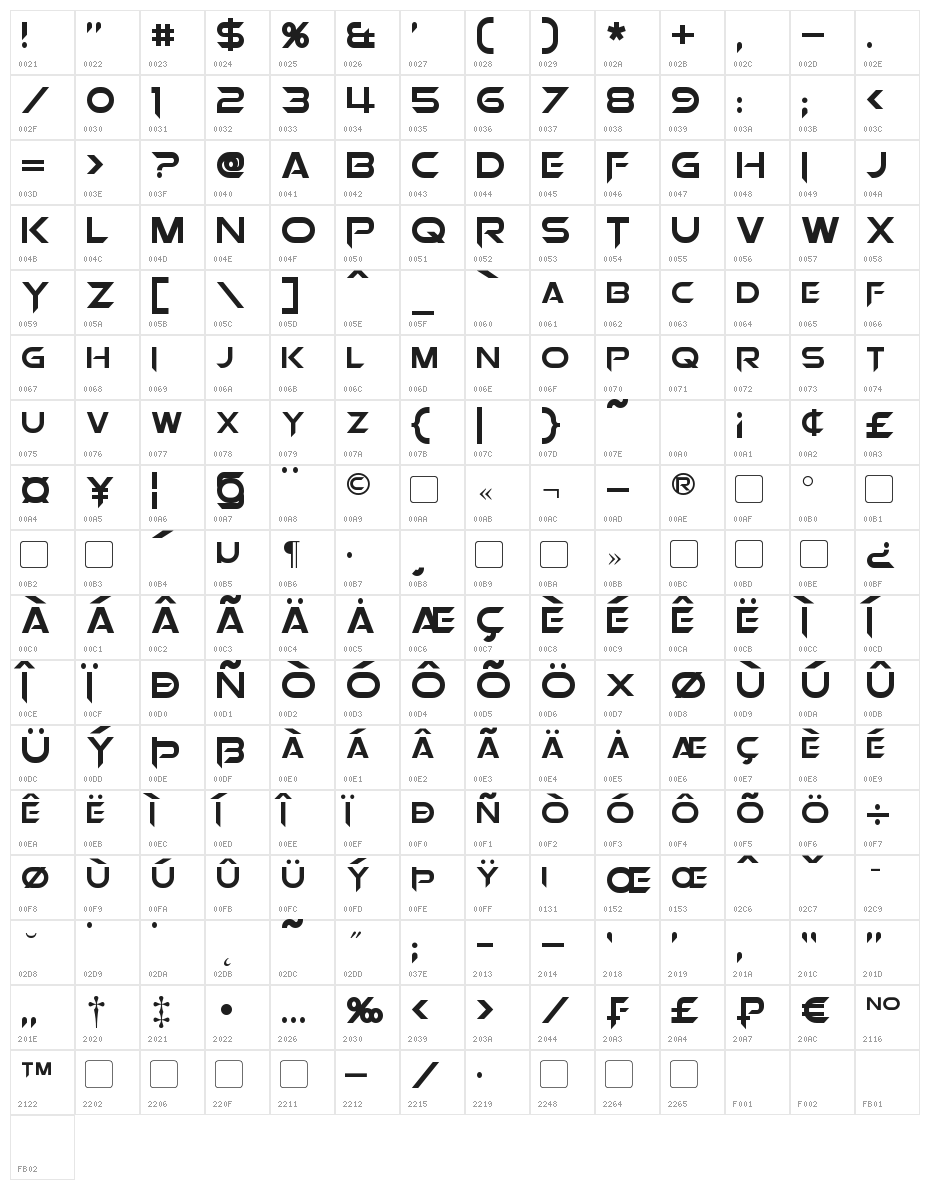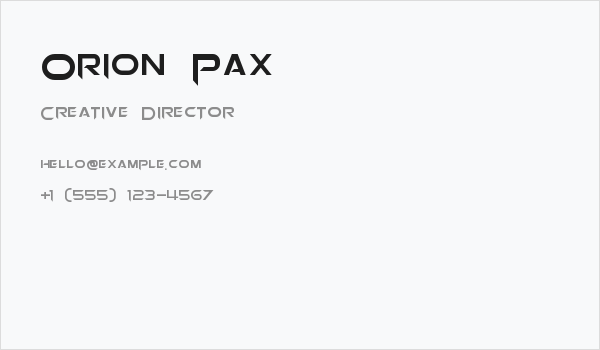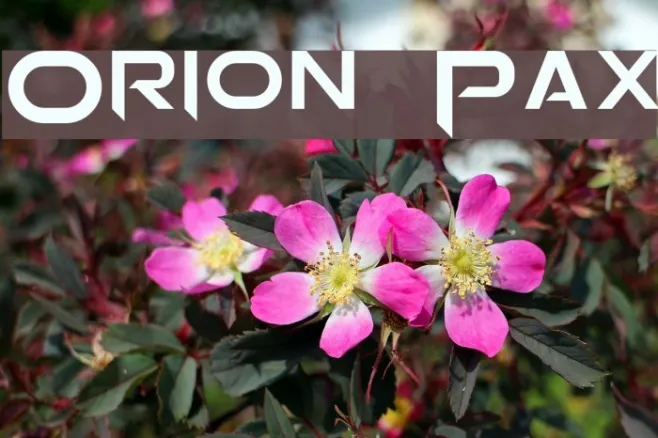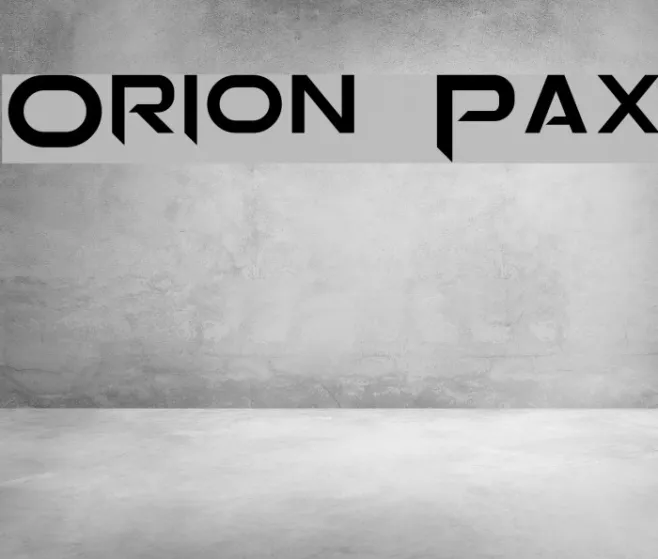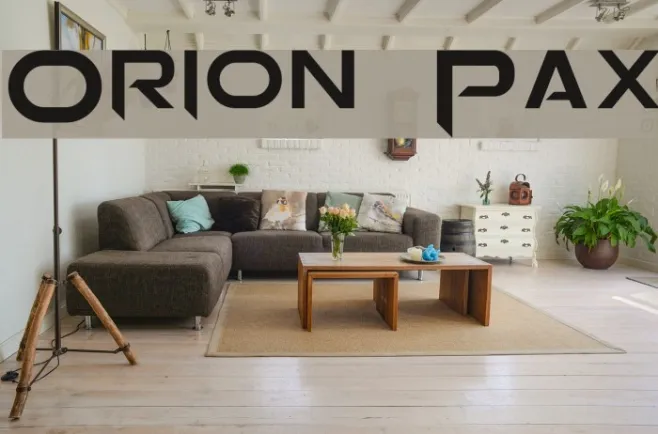
Orion Pax Font
Orion Pax Description
This font features a bold and futuristic design with sharp, angular edges and a geometric structure. The uppercase letters are particularly striking, with a consistent height and width that gives them a uniform appearance. The lowercase letters maintain the same angular style, creating a cohesive look throughout the typeface. Numbers and special characters are designed with the same attention to detail, ensuring they fit seamlessly with the alphabet. The font's overall aesthetic is modern and dynamic, making it suitable for projects that require a strong visual impact.
| Proposed Projects | Ideal for sci-fi themed designs, technology branding, video game titles, and modern advertising campaigns. |